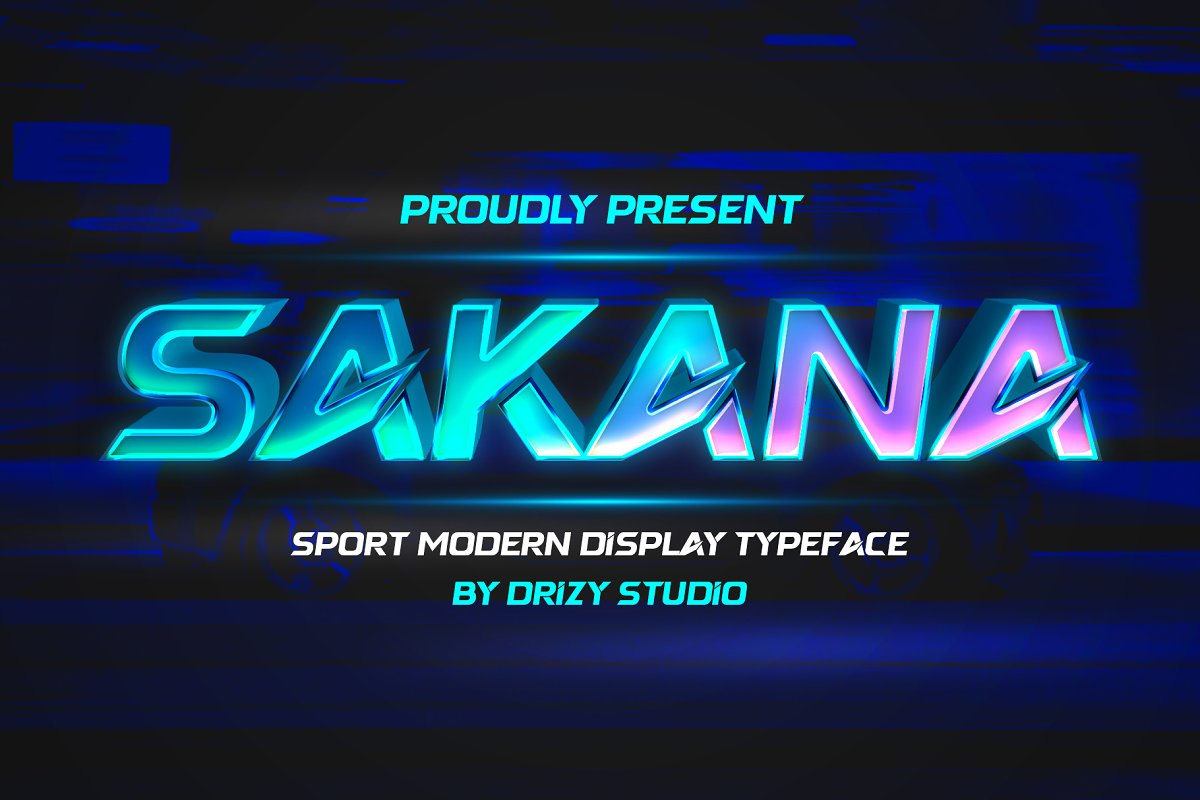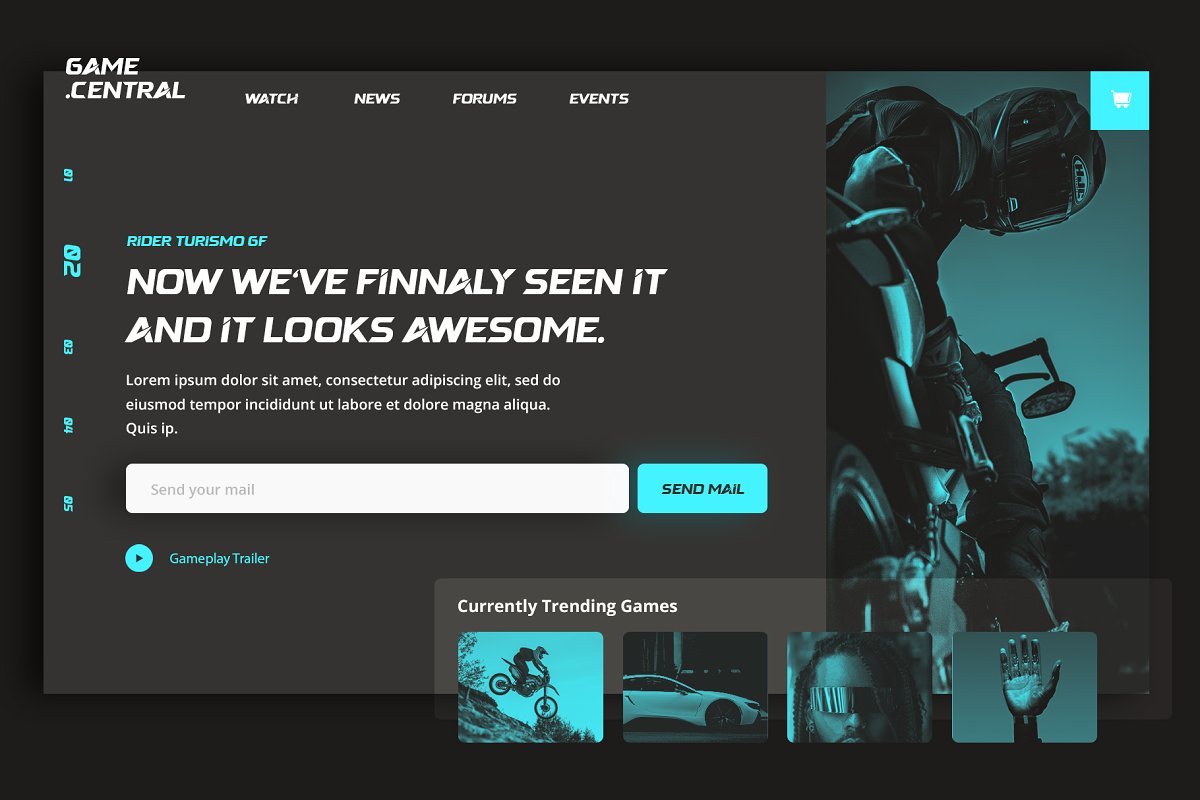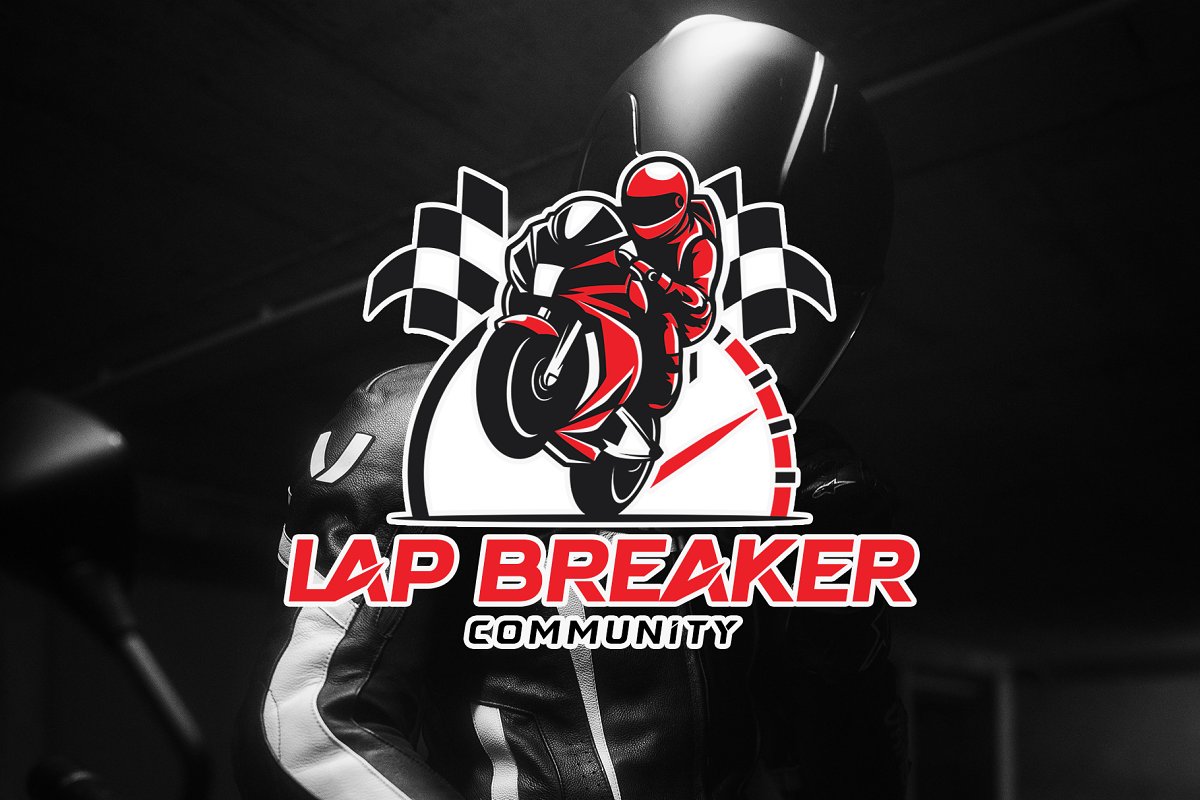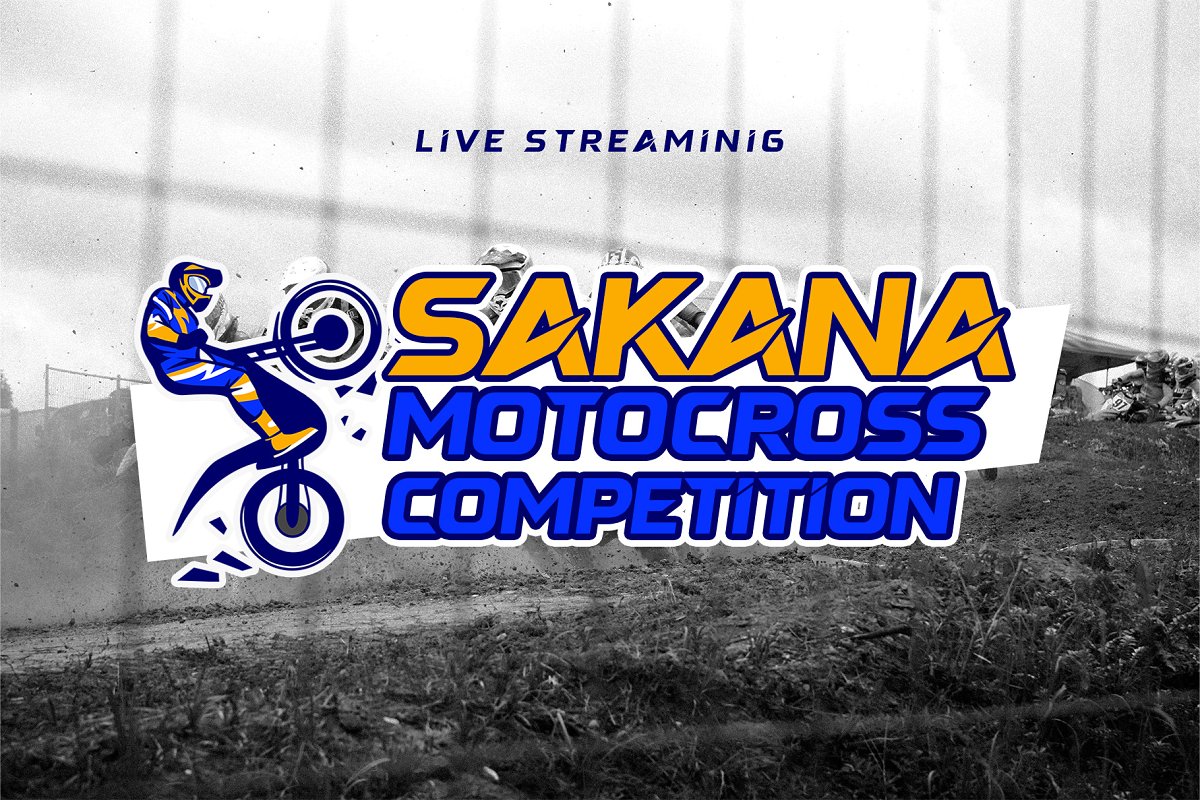
About the Sakana Futuristic Font
Sakana is Sport Modern Display futuristic font from Drizy studio, Offering all the basic styles you will need for a successful project especially for futuristic, sporty and modern theme, Sakana Features:Uppercase Numeral & Punctuation Multilingual & LigaturesGo buy and download this cool font!Do not hesitate to contact me if you have any questions about this product